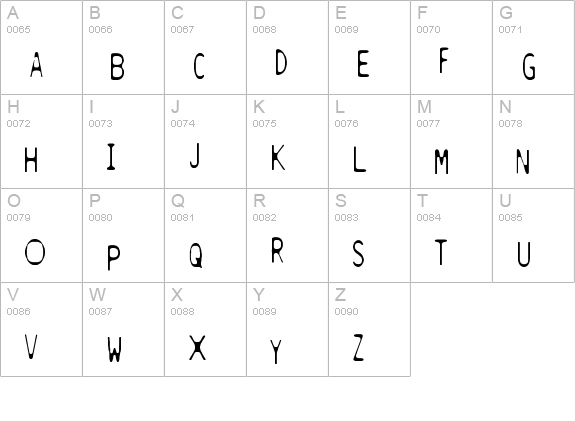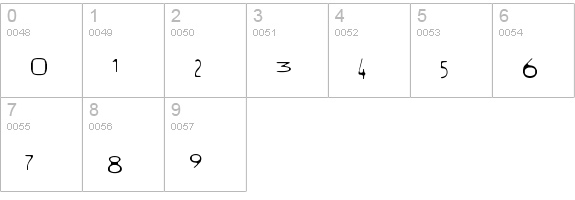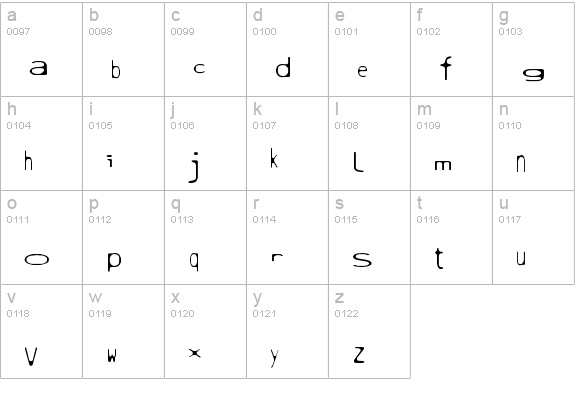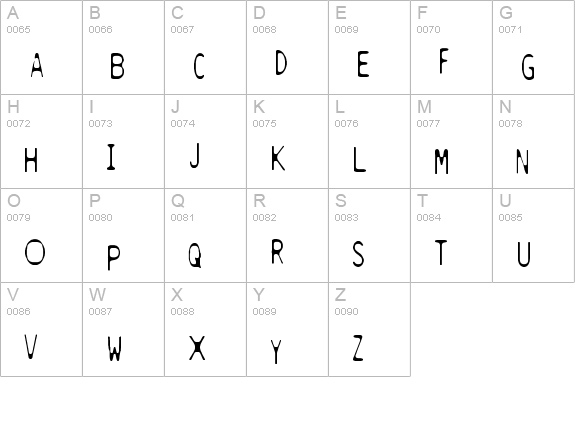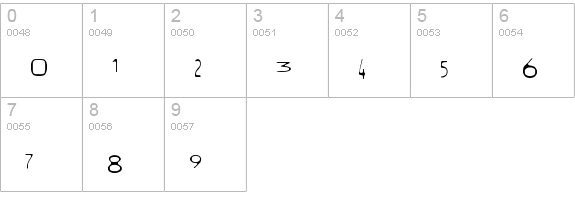
South Point Font is a visually stunning and versatile typeface that will add a touch of elegance and sophistication to any project. With its clean lines and modern design, this font is perfect for a wide range of applications, from branding and logo design to headlines and body text. What sets South Point Font apart is not just its aesthetic appeal, but also the fact that it is freely available to download at FontsMarket.com. This means that you can easily access and use this font without any financial constraints. Whether you are a professional designer looking to enhance your creative projects or an individual who simply wants to add a stylish touch to personal documents or social media posts, South Point Font is an excellent choice. Its versatility allows it to seamlessly blend into various design styles and themes, making it a go-to option for both commercial and personal use. The attention to detail in South Point Font is truly remarkable, as every curve and stroke has been meticulously crafted to ensure a visually pleasing and legible end result. This font's readability is particularly noteworthy, making it suitable for both small and large text sizes. So, if you are in search of a high-quality font that combines elegance, versatility, and readability, look no further than South Point Font. And the best part is, you can download it for free at FontsMarket.com. Don't miss out on the opportunity to elevate your design projects with this exceptional font.